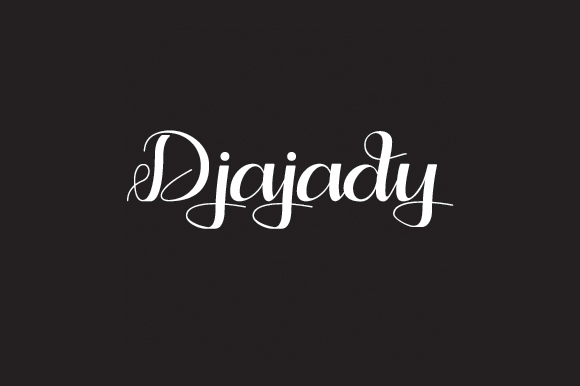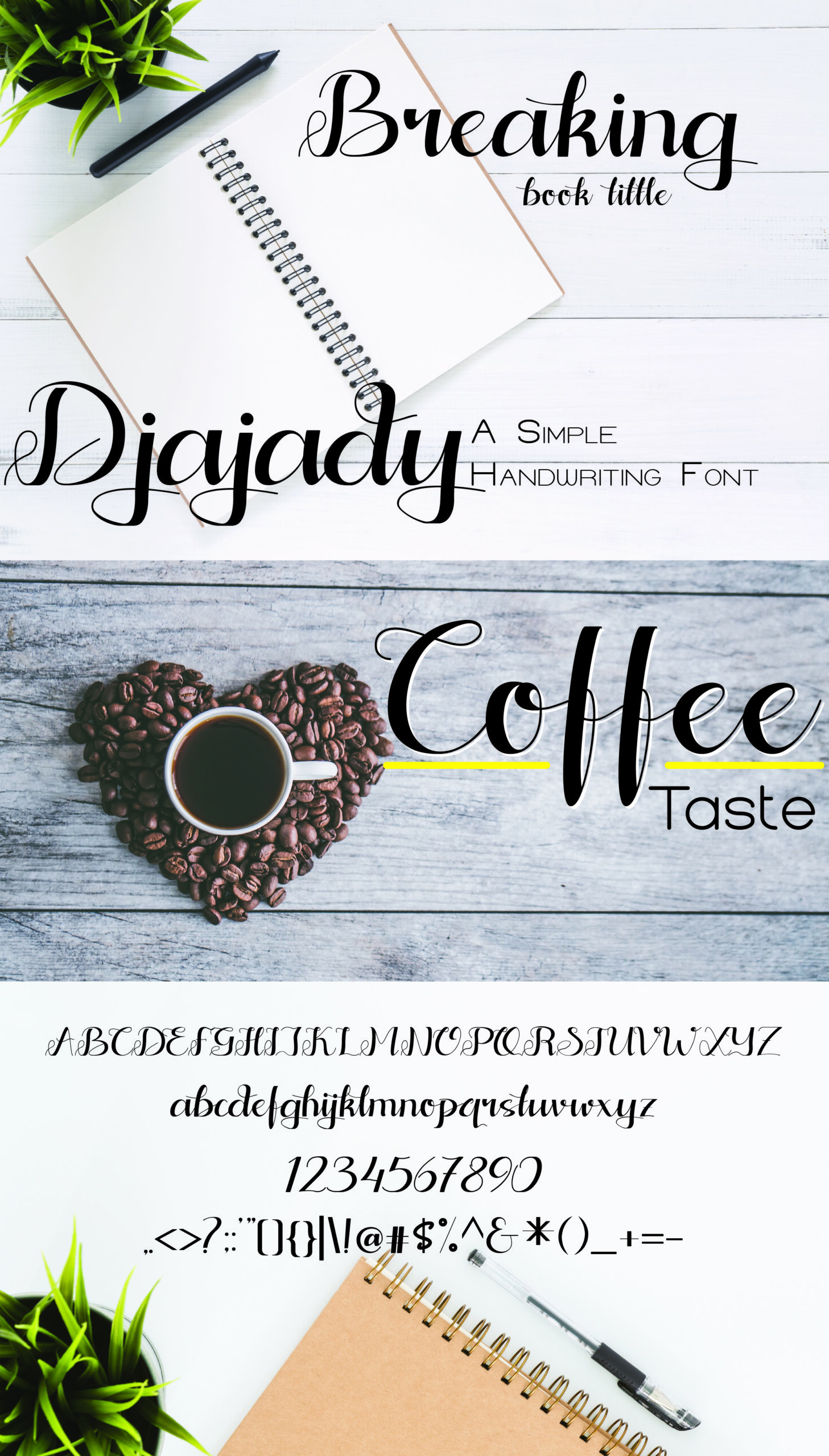
Djajady Font
About Djajady Font
Djajady is a simple handwritten font, perfect for a wide range of designs. Elegant and classy, Djajady is a great script to have in your font collection.